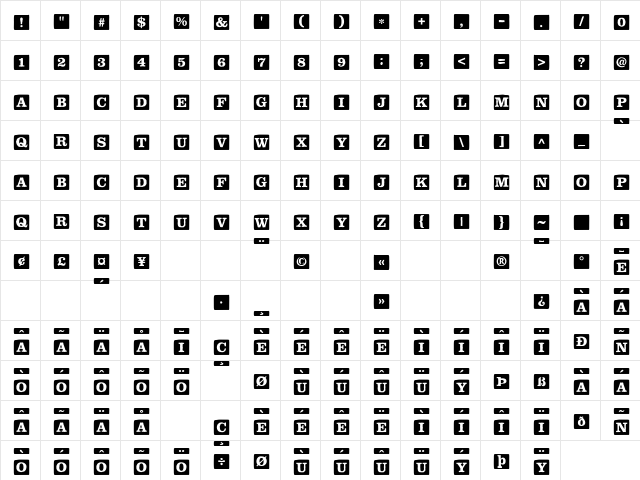
P22 ToyBox BlocksSolid Regular
Design Context for P22 ToyBox BlocksSolid Typeface
P22 ToyBox BlocksSolid is a composed and adaptable typeface that performs quietly and consistently across a wide range of design contexts.